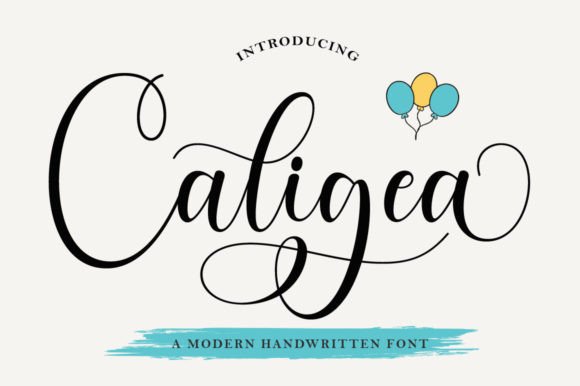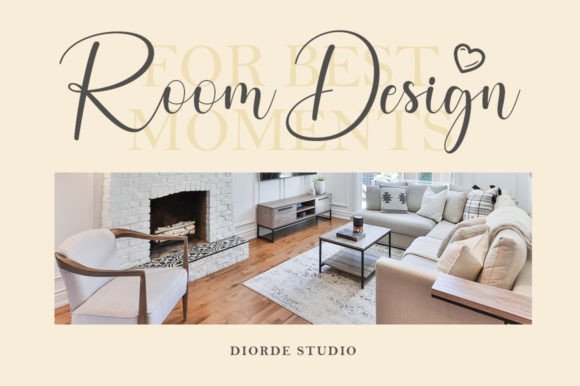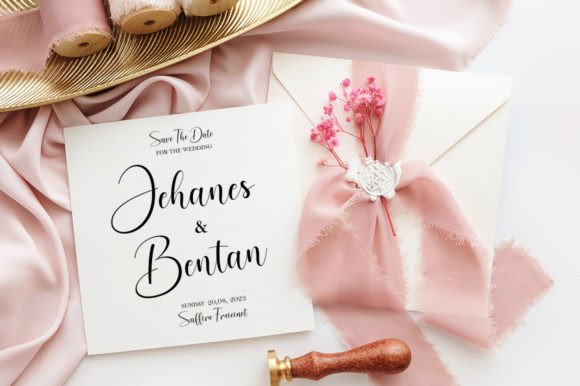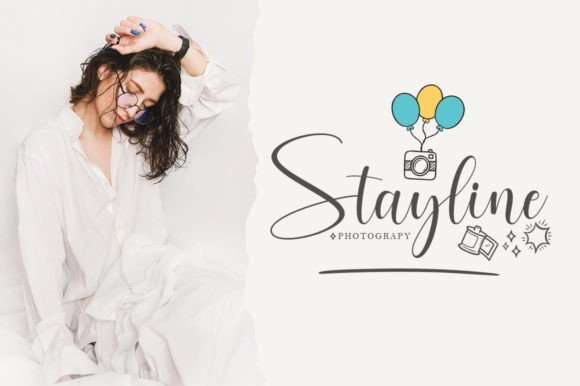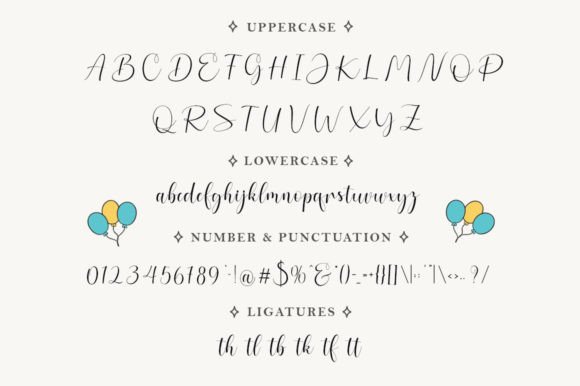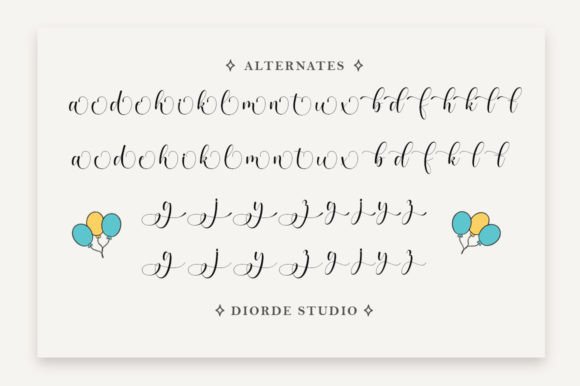
Caligea Font
Discover the Graceful Elegance of Caligea Font
Caligea Font is a beautifully crafted modern calligraphic typeface designed to add rhythm and elegance to your creative projects. Its smooth, flowing strokes and balanced letterforms make it ideal for creating classy and sophisticated compositions. Whether you are working on branding, invitations, web graphics, or cards, Caligea Font brings a polished and stylish touch to your designs.
The font’s graceful rhythm and contemporary style ensure your work stands out with timeless beauty.
Versatile Applications for Caligea Font
CaligeaFont is perfect for a wide range of creative uses, including:
• Branding projects and logos
• Wedding and event invitations
• Web graphics and digital content
• Greeting cards and stationery
• Posters, flyers, and promotional materials
• Social media posts and marketing campaigns
Its modern calligraphic style adds sophistication and charm to every design.
The font features well-kerned letters and balanced spacing for excellent readability across various sizes and formats.
Why Designers Choose Caligea Font
Designers love CaligeaFont for its blend of modern elegance and classic calligraphy influences. It adds a refined and artistic touch to projects, making it suitable for both formal and contemporary designs. Whether you are a professional or a hobbyist, CaligeaFont helps elevate your work with grace and style.
Use CaligeaFont to create stunning compositions that captivate and inspire.